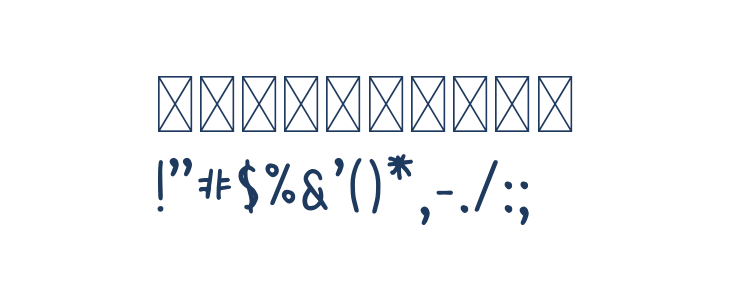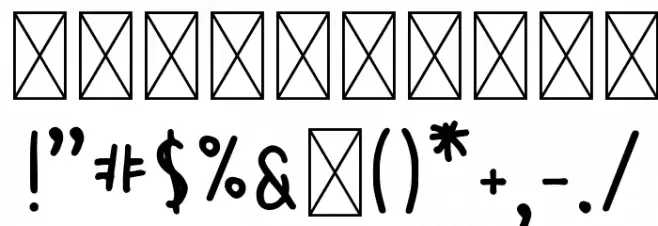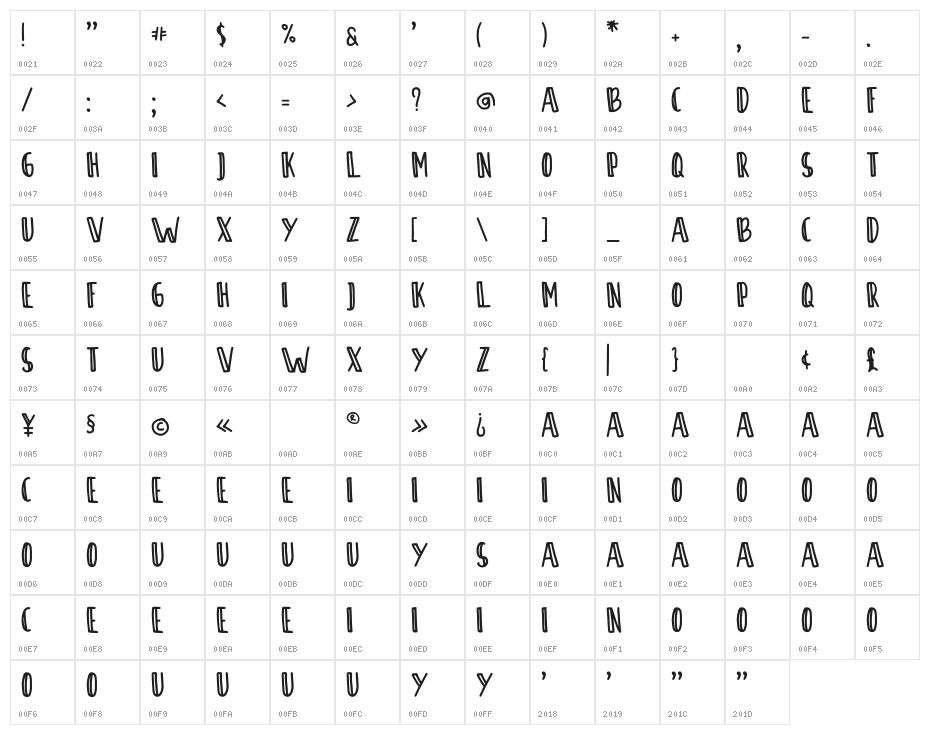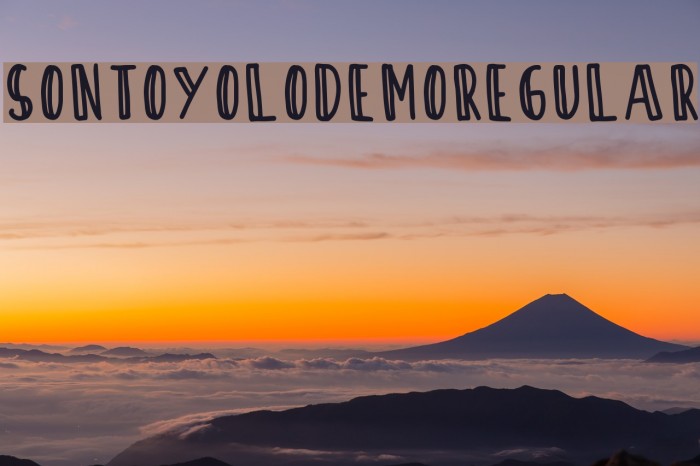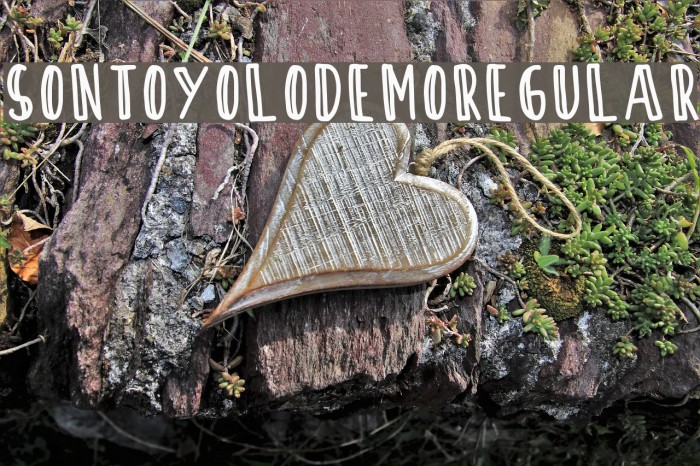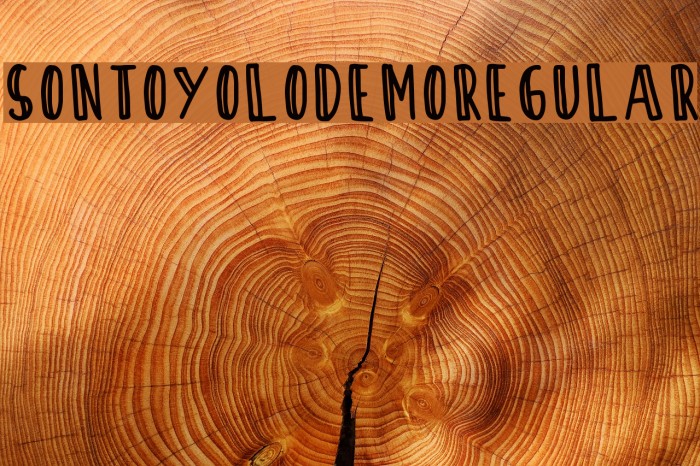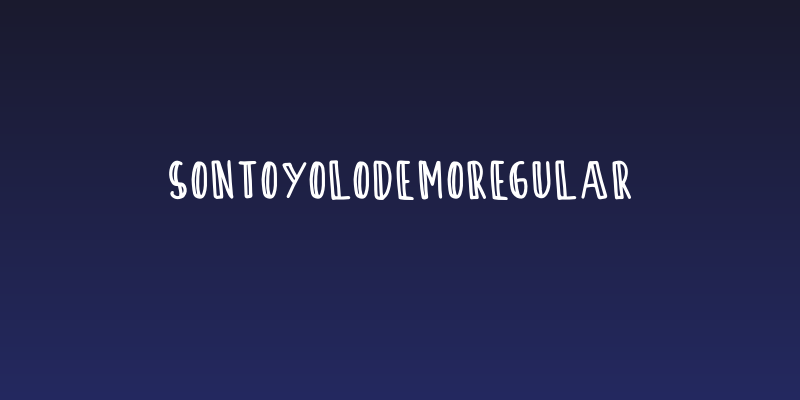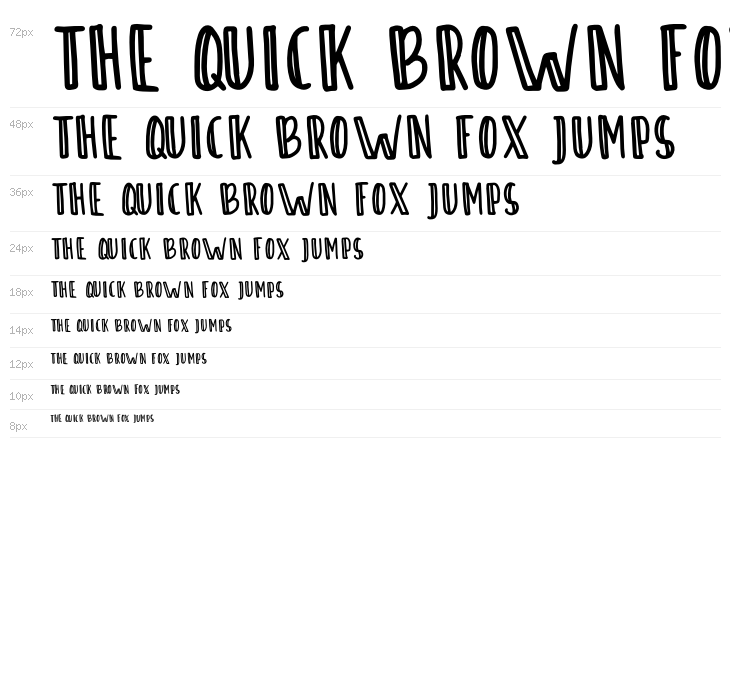
SontOyoloDemoRegular Font
SontOyoloDemoRegular Description
This font features a playful and informal style with hand-drawn characteristics. The letters have a slightly irregular shape, giving them a whimsical and approachable feel. The strokes are bold and consistent, with a slight tilt that adds to the casual aesthetic. The uppercase and lowercase letters maintain a uniform height, while the numbers and special characters complement the overall design with their quirky forms. This font is ideal for projects that require a fun and friendly touch, such as children's books, greeting cards, or playful branding.
| Overall Style | Playful, Casual |
| Proposed Projects | Children's books, greeting cards, playful branding, casual invitations. |